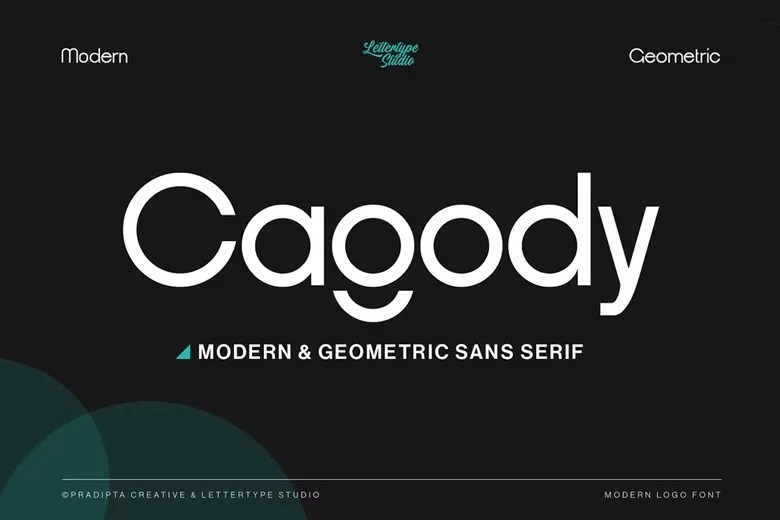
Cagody Font
Cagody is clean and classy sans serif typeface: geometric, modern and very customizable for your and your extraordinary designs. This font is ideal for photography, watermarks, social media posts, advertisements, logos & branding, invitations, product designs, labels, stationery, wedding designs, product packaging, subleaders or headers, special events or anything really.
Cagody Sans Serif Font